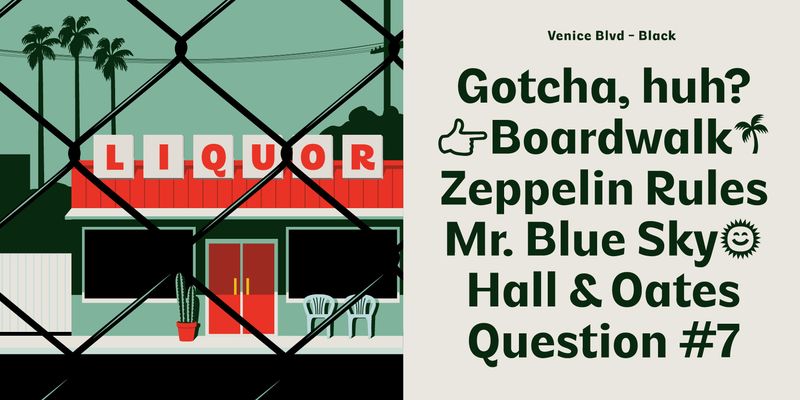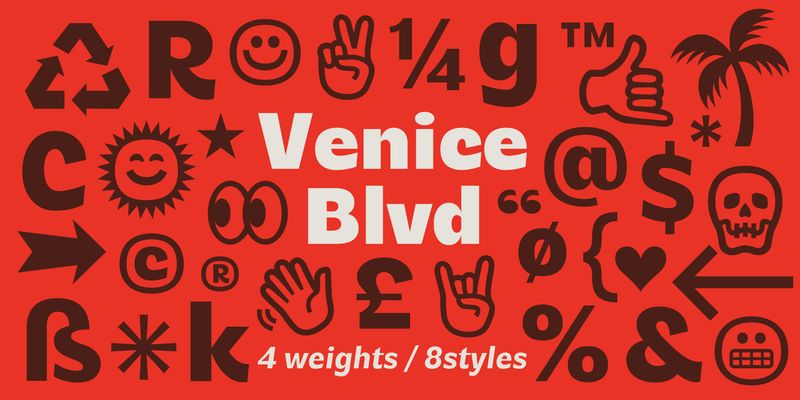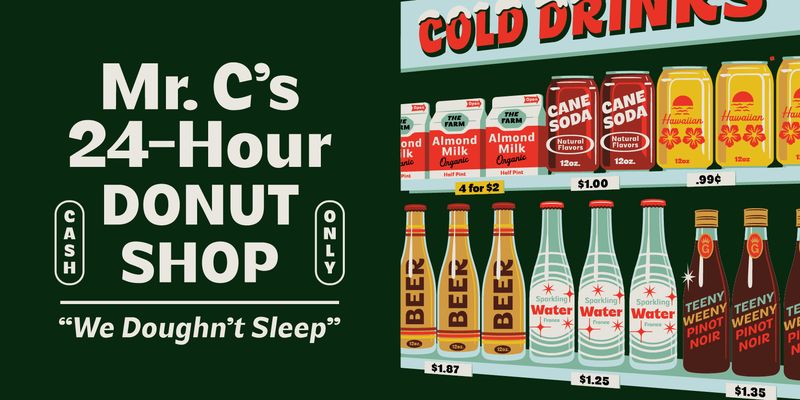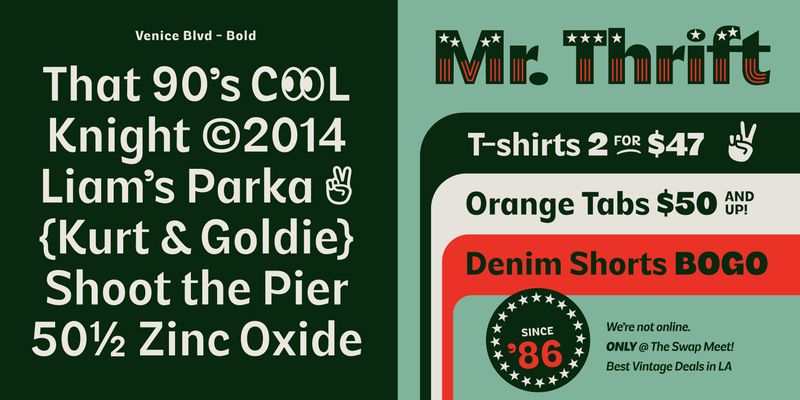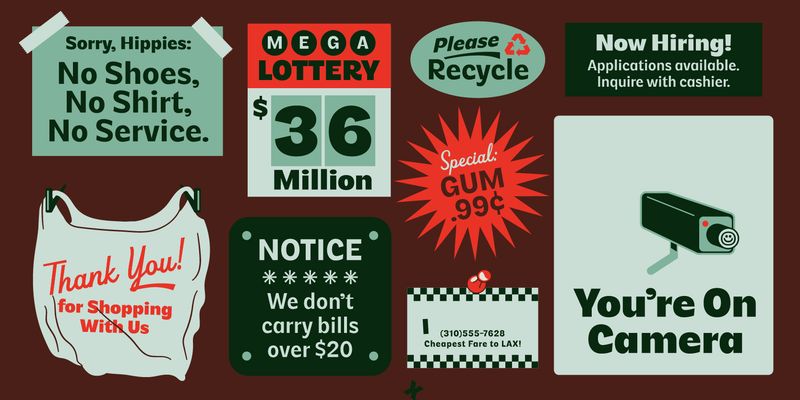
For those instances when you just need a bit of bounce, a bit of “je ne sais what now?”: may we introduce Venice Blvd. This display family is as eccentric as the drum circle at Venice Beach; as curvy as the Venice skate park bowls; as unpretentious as the souvenir stand selling pukka shell necklaces. Venice Blvd. comes in 4 weights with italics. Includes tons of emojis and symbols to spice things up.